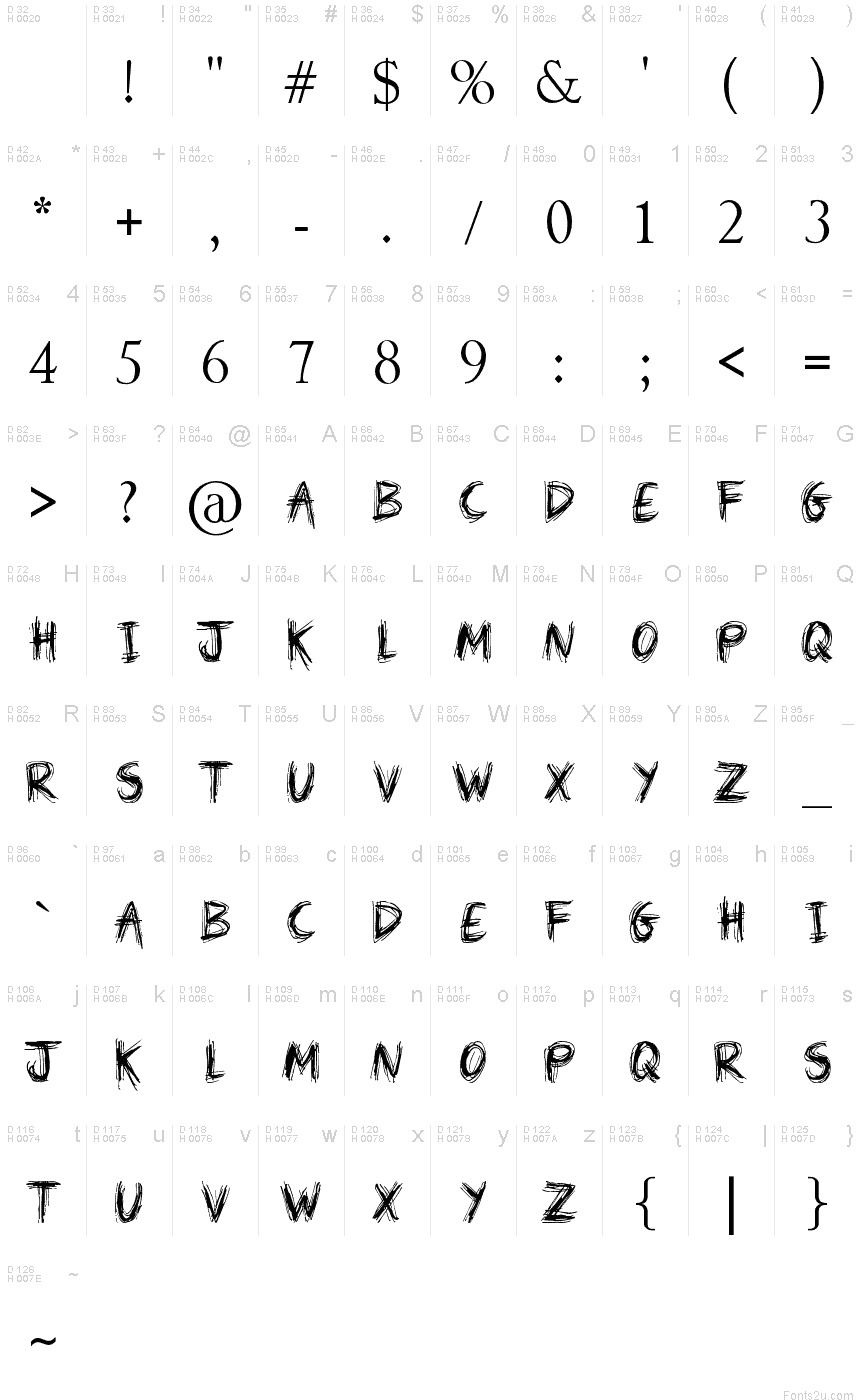
Forbidden Land by TattooWoo.com is a free trash script with tall, restless capitals and a raw tattoo-shop edge. Each letter is scratched out in overlapping strokes, mixing blunt black marks with wiry lines and stray cuts.
A punk gig poster is its clearest setting, and the same abrasive lettering suits album covers, skate merchandise, and horror event graphics. The repeated slashes and doubled contours can become part of the artwork itself and match distressed illustration, ink splatter, or photocopied textures.